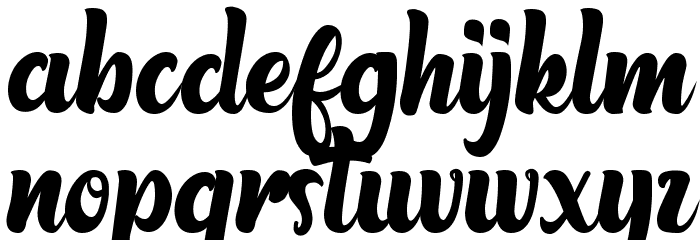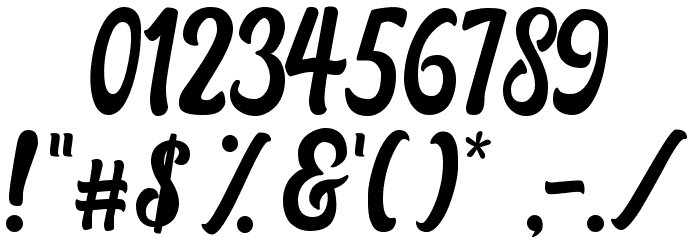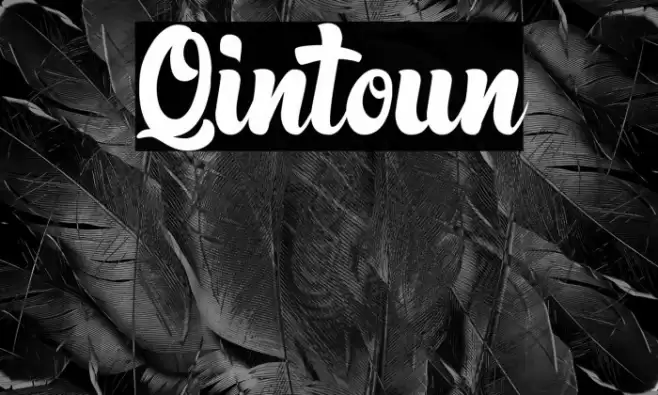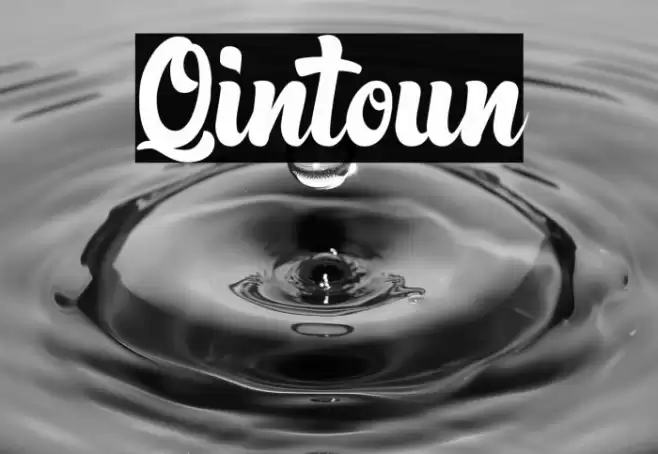
Qintoun Font
This font features a bold, flowing script style with a strong presence. The uppercase letters are elegantly curved, with a consistent slant that gives a sense of movement and fluidity. The lowercase characters maintain this fluidity, with rounded forms and smooth transitions between strokes. Numbers are bold and clear, matching the overall style of the letters. Special characters are well-integrated, maintaining the same bold and flowing characteristics. The font's thick strokes and rounded edges create a friendly and approachable feel, making it suitable for a variety of creative applications.
A bold, flowing script font with elegant curves and a strong presence.
- Proposed Projects: Ideal for branding, invitations, greeting cards, and creative headlines.
- Use Case: Logos, Headlines, Invitations